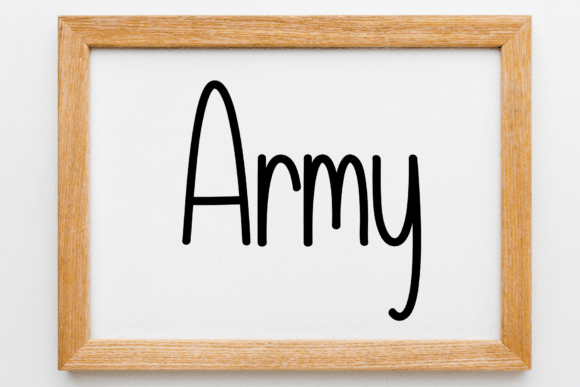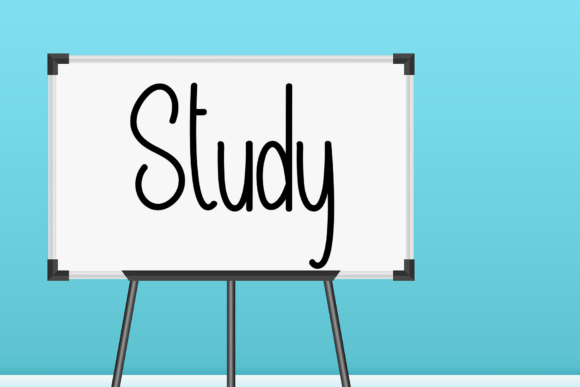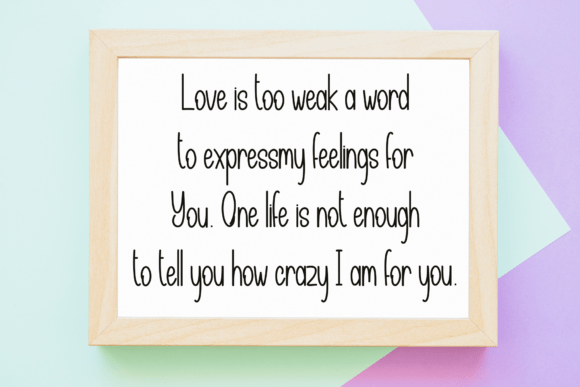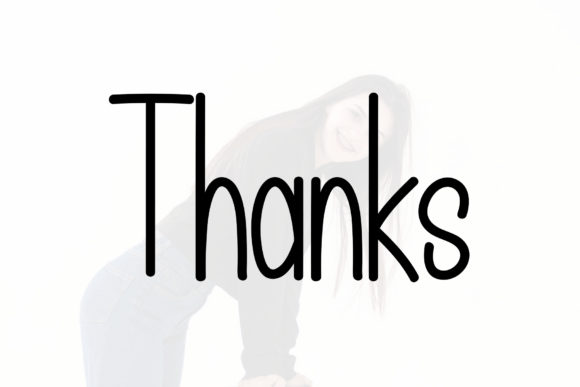
The Birth of a Creative Masterpiece: Introducing Anantha Font
Who hasn’t experienced that moment when inspiration strikes, and a brilliant idea pops into your mind like a flash of lightning on a stormy night? For designers, this moment is a blessing in disguise – a chance to create something truly remarkable. And, for those who have been searching for the perfect font to bring their designs to life, that moment has finally arrived with the introduction of the Anantha Font.
This beautifully crafted handwritten font boasts a relaxed and sporty feel, making it the perfect addition to any branding, logo, or marketing campaign. With its elegant yet casual vibe, Anantha Font is ideal for wedding supplies, greeting cards, fashion, lookbooks, and more. Whether you’re a seasoned designer or just starting out, this versatile font is sure to elevate your creations to new heights.
Anantha Font Key Features
- Character Set: The font includes a comprehensive character set, covering multiple languages, including Latin, Cyrillic, and Devanagari scripts.
- Unique Characteristics: The font features a unique blend of traditional and modern design elements, with intricate details and ornaments that add a touch of elegance and sophistication.
- Font Style: Anantha Font is available in several font styles, including Regular, Bold, Italic, and Bold Italic, providing users with a range of options to suit their needs.
Anantha Font Review
I recently had the chance to work with the Anantha font, and I must say it’s a fascinating addition to any design project. Here’s my honest review:
- ✨ Elegant and sophisticated feel: Anantha exudes a sense of luxury and refinement, making it perfect for high-end branding and advertising projects.
- ✨ Highly versatile: This font comes in multiple weights, making it suitable for a wide range of applications, from body text to headings.
- ✨ Beautiful letterforms: Anantha’s letterforms are carefully crafted to create a cohesive and visually appealing design.
- ⚠️ Limited language support: As a sans-serif font, Anantha may not be the best choice for languages that require more complex letterforms or diacritical marks.
- ⚠️ May not be suitable for small text: Due to its elegant and refined feel, Anantha may become difficult to read in small sizes.
Overall impression:
Anantha is a stunning font that can elevate any design project. While it may have some limitations, its unique feel and versatility make it a valuable addition to any designer’s toolkit. With careful selection and application, Anantha can create a lasting impression on your audience.
Tips for Getting the Most Out of Anantha Font
For best results, use Anantha Font for headings and titles. It pairs well with sans-serif fonts for body text.
Anantha Font is ideal for:
- Event branding and marketing materials